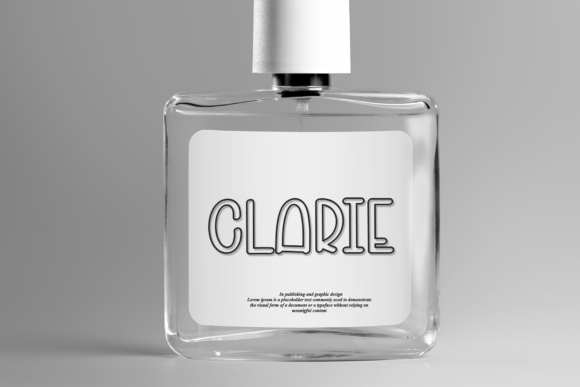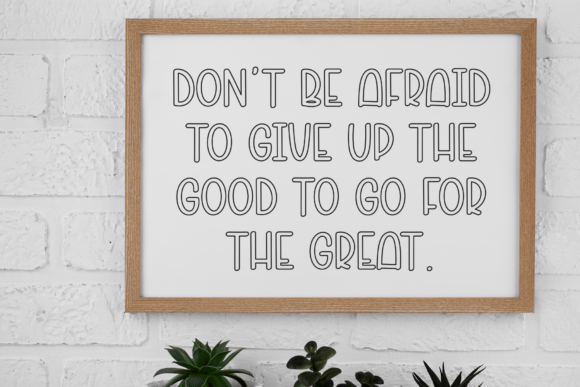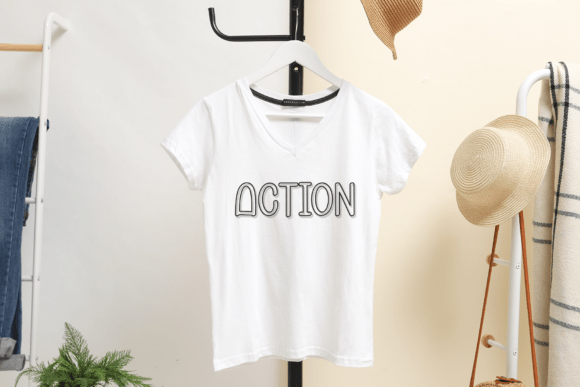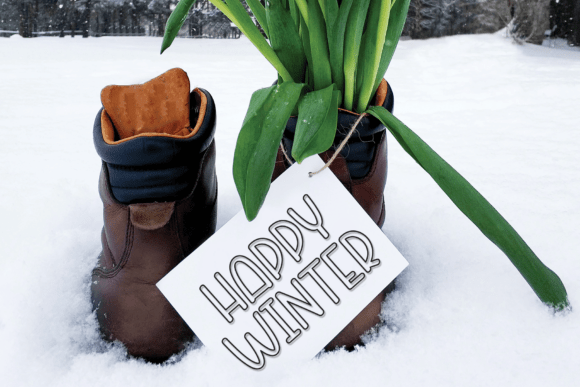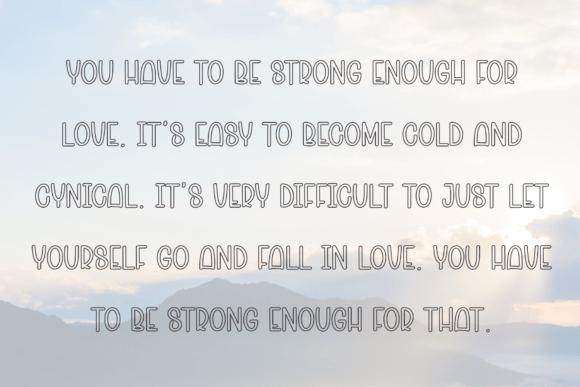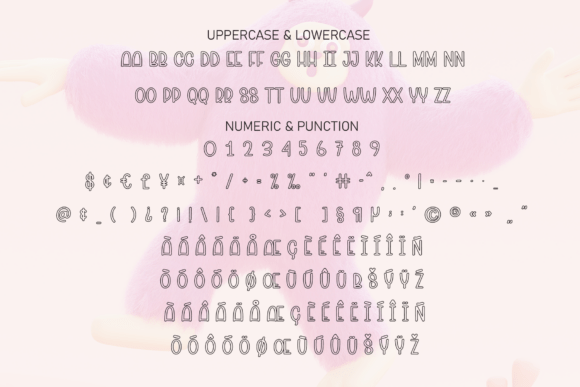
Preppy Monster Font – Free Download
Introduction to Preppy Monster Font
Introducing the enchanting fusion of sweetness and friendliness, presented in the form of a tailored handwritten display font.
Boasting a charming and playful disposition, this font blossoms when drafting heartfelt wedding invitations, crafting thoughtful cards, or bringing a dash of fun to any design that yearns for an endearing touch Ideal for amplifying the voice of whimsy in any creative project.
Key Features of Preppy Monster Font
Why Choose Preppy Monster Font?